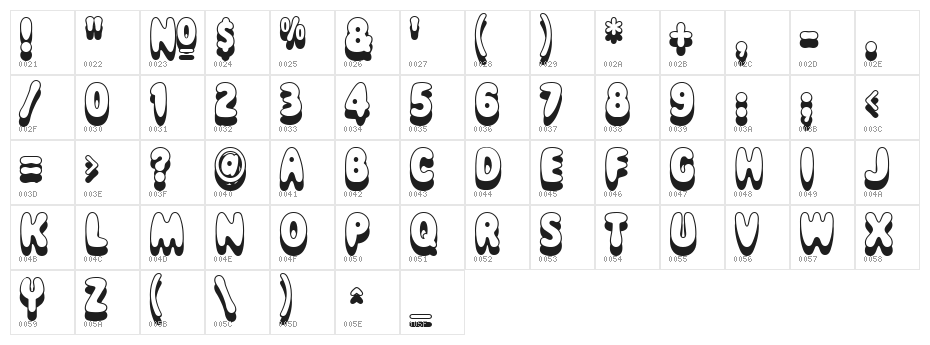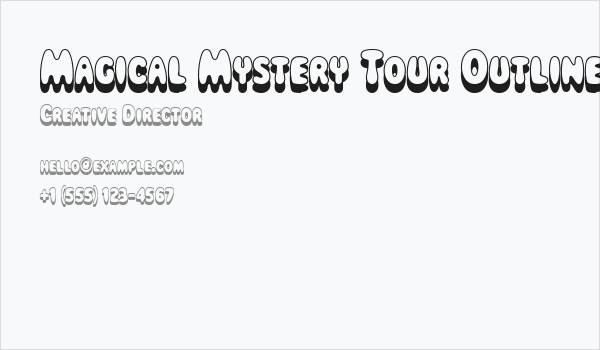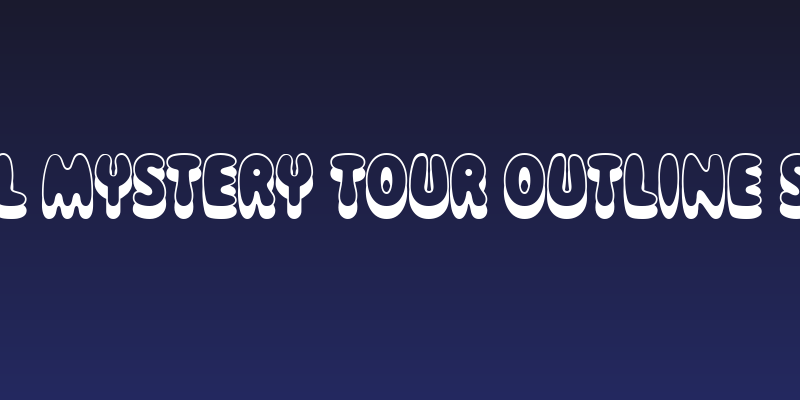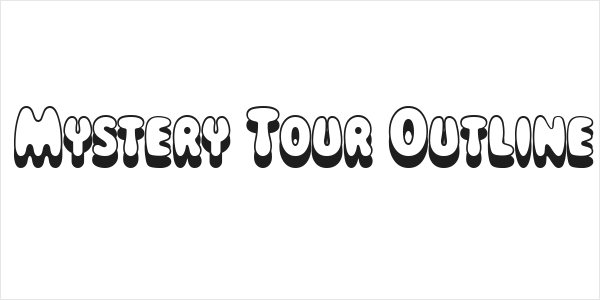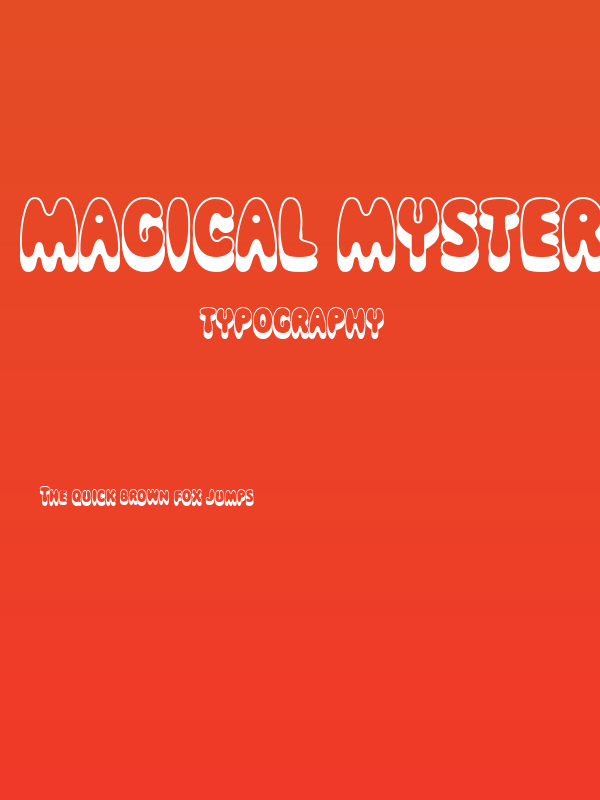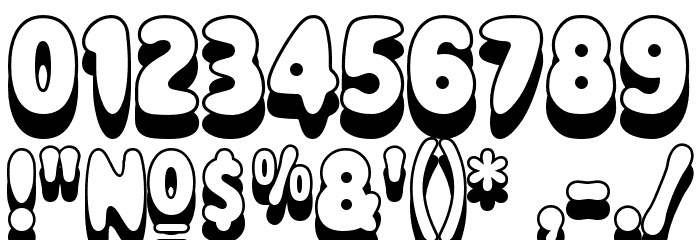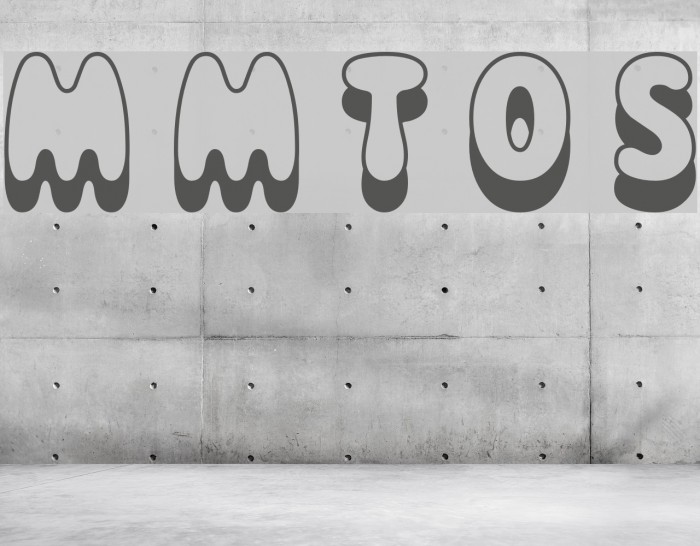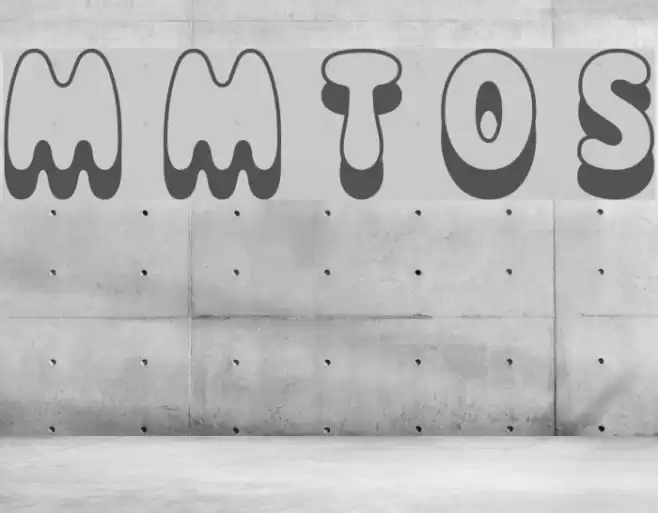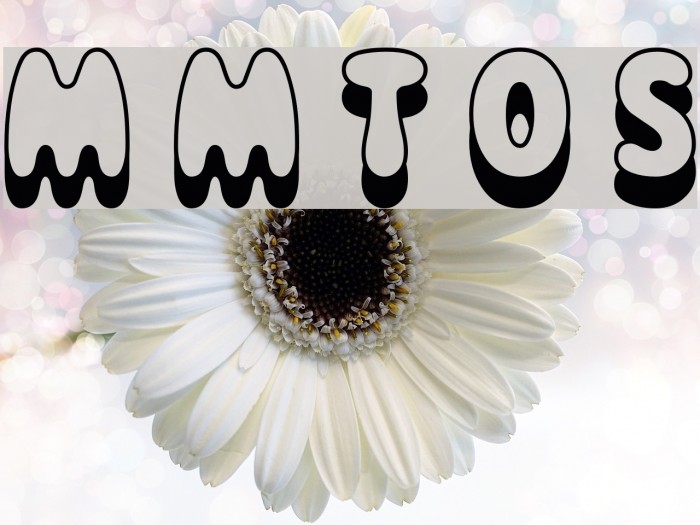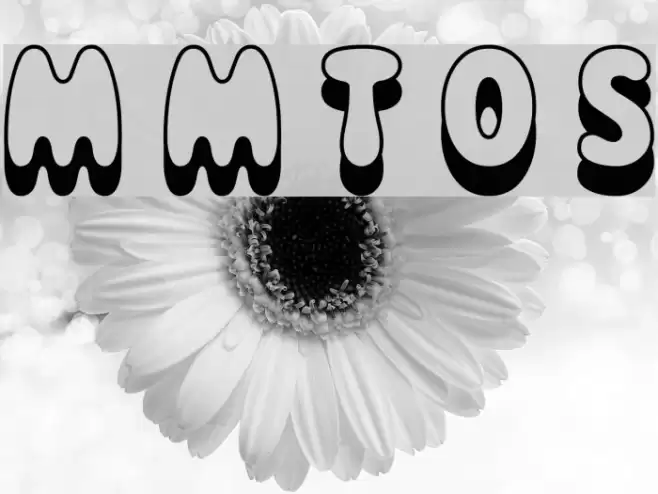
Magical Mystery Tour Outline Shadow Font
Magical Mystery Tour Outline Shadow Description
This playful and bold font features a unique outline and shadow effect, creating a three-dimensional appearance. The characters are rounded and bubbly, giving off a whimsical and fun vibe. The uppercase and lowercase letters maintain a consistent style, with thick outlines that enhance their visibility. The numbers and special characters are equally bold, ensuring they stand out in any design. This font is perfect for projects that require a touch of creativity and playfulness, making it ideal for children's books, posters, and party invitations.
| Overall Style | Playful, Whimsical |
| Proposed Projects | Ideal for children's books, playful posters, party invitations, and creative branding. |